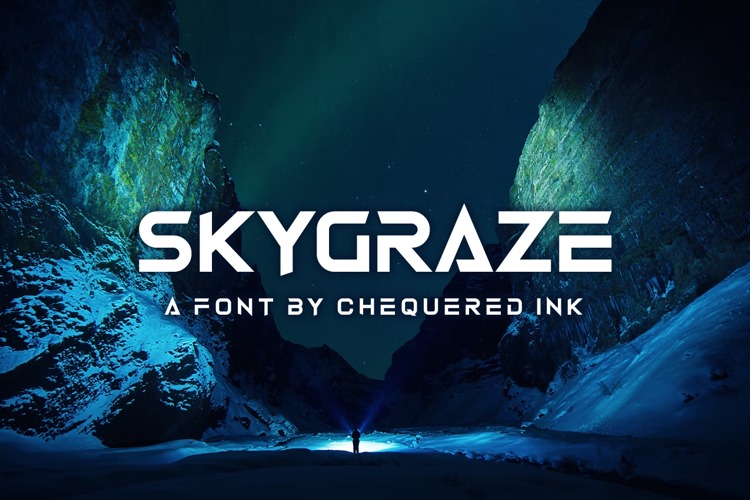
Skygraze Display Font
This is a futuristic sans serif font that takes on the theme of advanced technology. This font is good to use as a headline or title of a magazine, print, poster, web font, etc. the body of this font is square with a little curved on each side. inspired by spaceship construction on pop culture depictions.